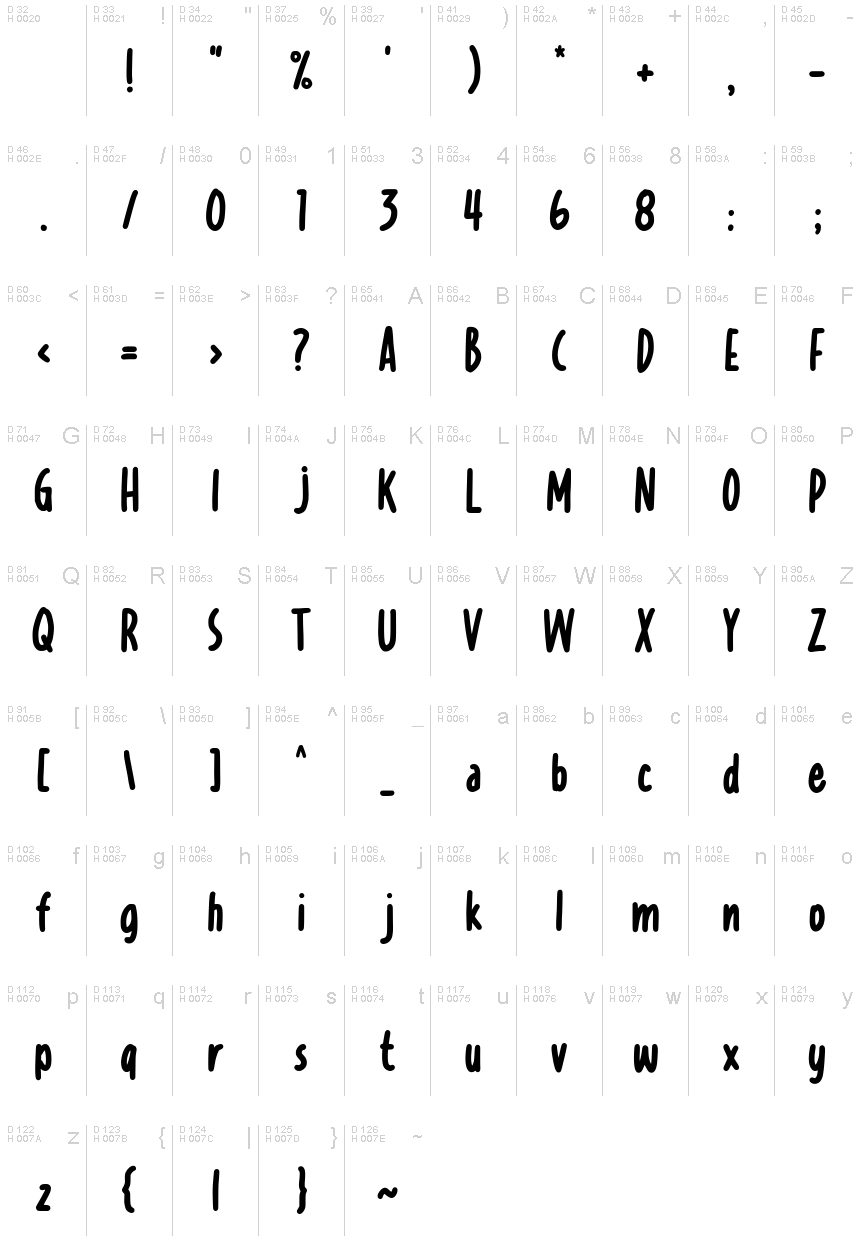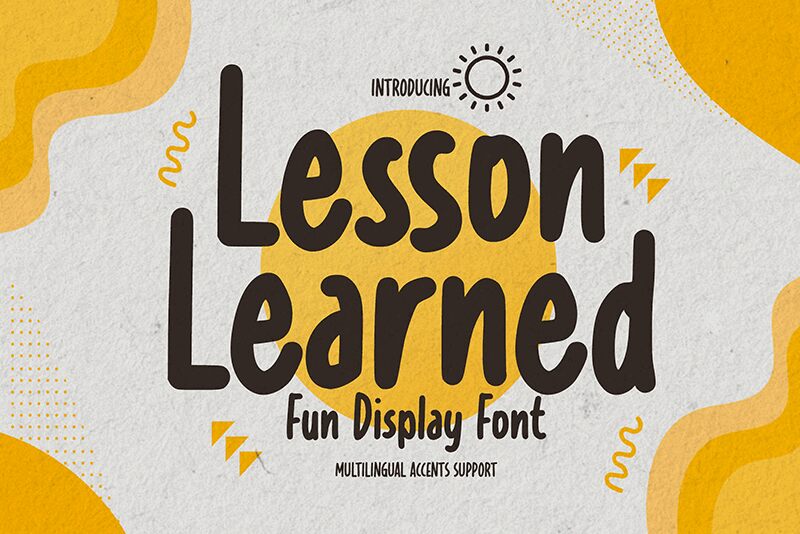
Lesson Learned
Lesson Learned is a captivating handwritten font that exudes a sense of authenticity and personal experience. Designed by Gassstype, this condensed typeface showcases a distinctive flair, with each letter appearing thoughtfully crafted, as if penned by an individual recounting a valuable lesson. The fluid, expressive strokes and subtle variations in line thickness lend the font a genuine, handcrafted feel, inviting the viewer to engage with the narrative it conveys.
This font's versatility shines, making it a compelling choice for a wide range of design applications, from editorial layouts and packaging to branding and social media content. Its condensed width allows for efficient use of space, while the emotive, handwritten quality can infuse a touch of personalization and warmth into any project. Lesson Learned is a font that truly captures the essence of a meaningful journey, ready to elevate and inspire the visual storytelling of designers and creatives.